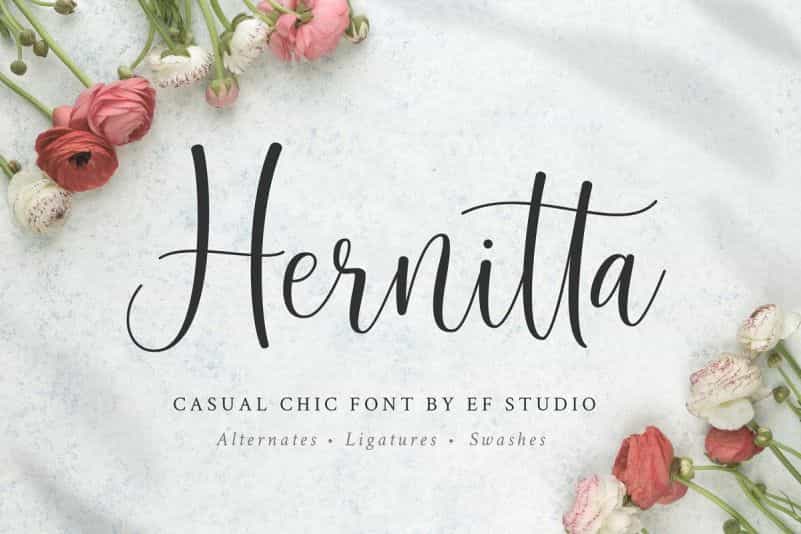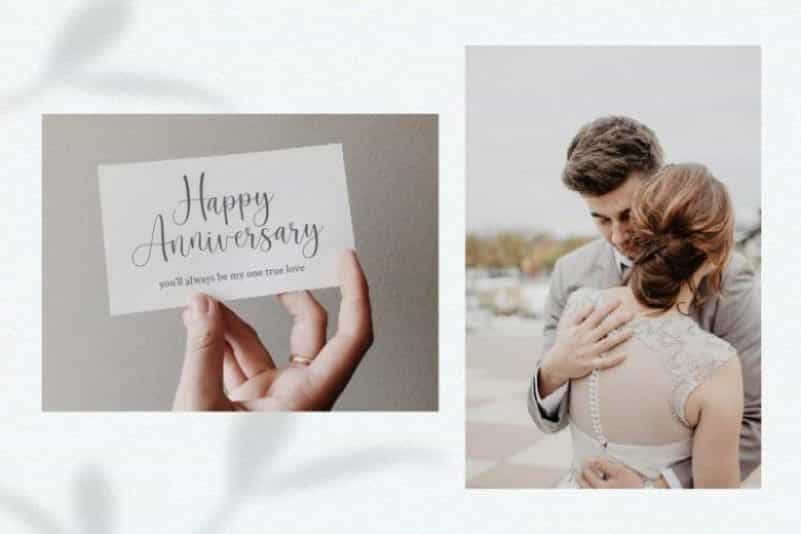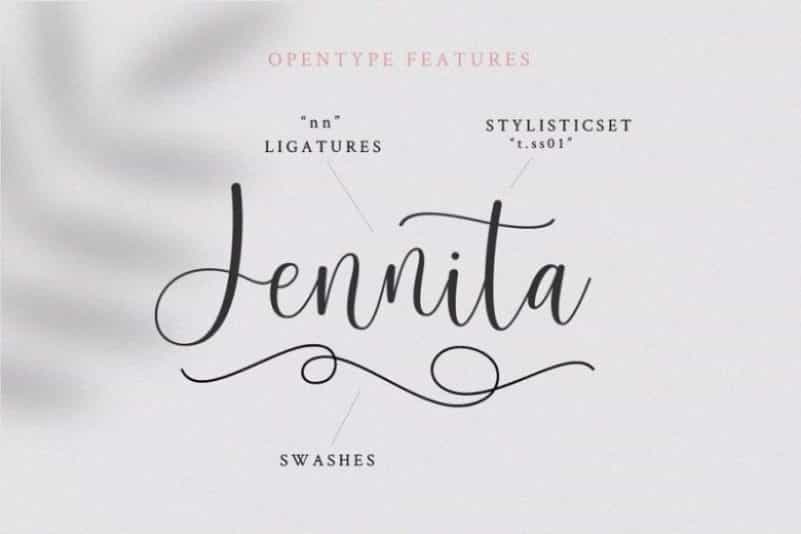
Hernitta Font the new beauty! If you are looking for the touch of grace and modernity for your designs, this font was created for you! Hernitta is suitable for luxury packaging, stationery, cards, posters, and logos, as well as lifestyle photography and custom products.